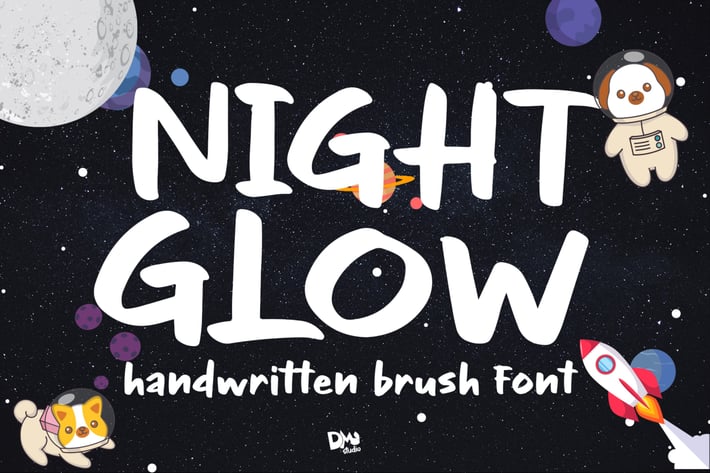
Night Glow - Handwritten Font
Night Glow
Night Glow is a fun and bold handwritten brush font. Great for any display or quote typography, branding or promotional stuff. Fall in love with the huge range of this font usage!